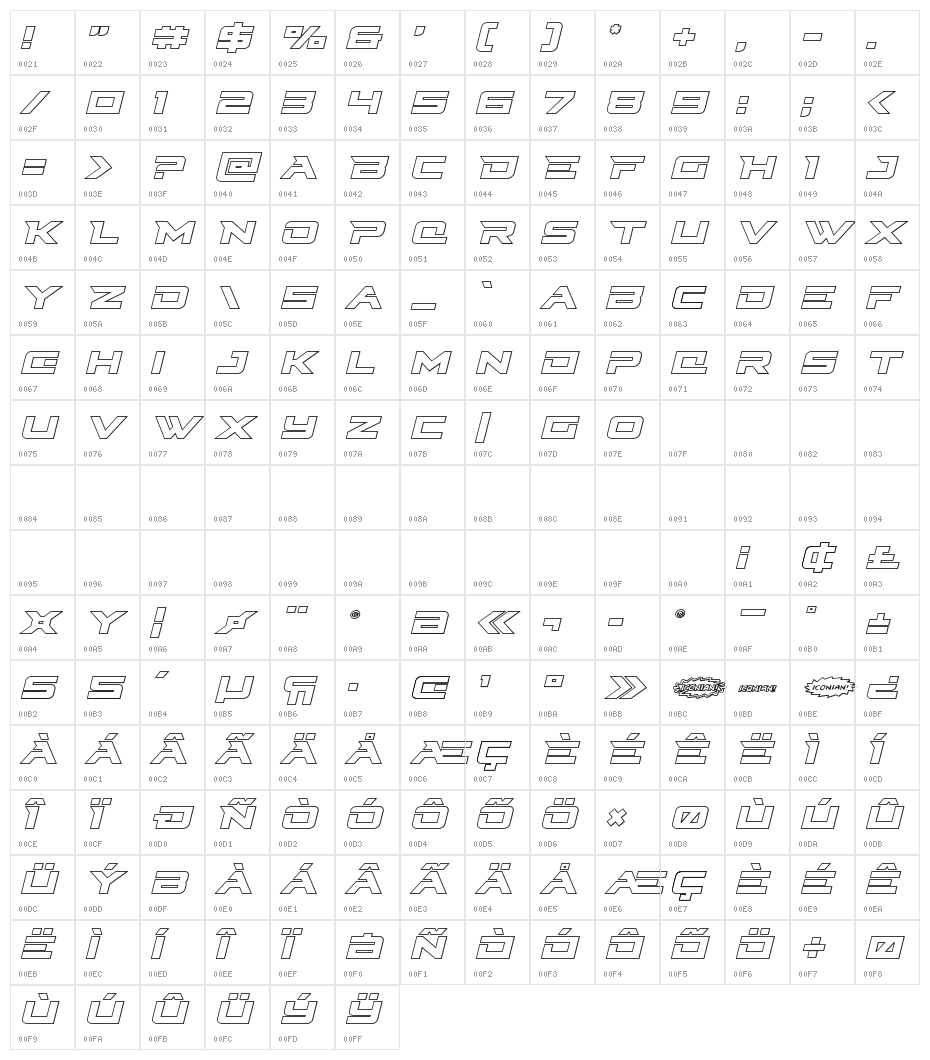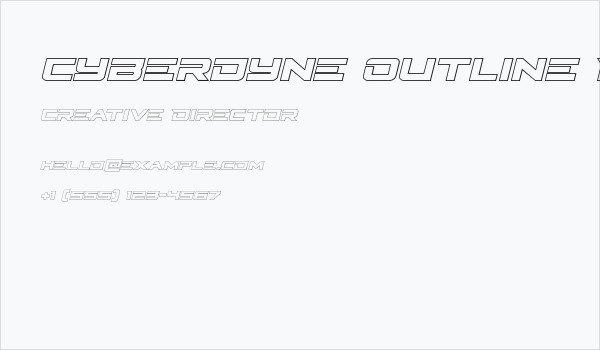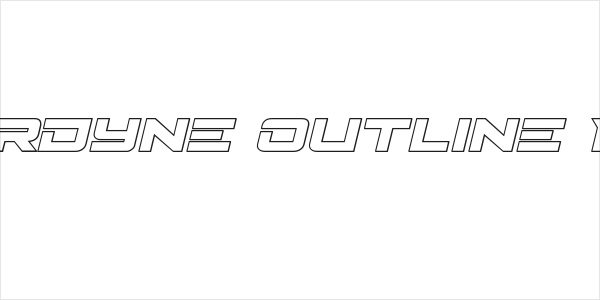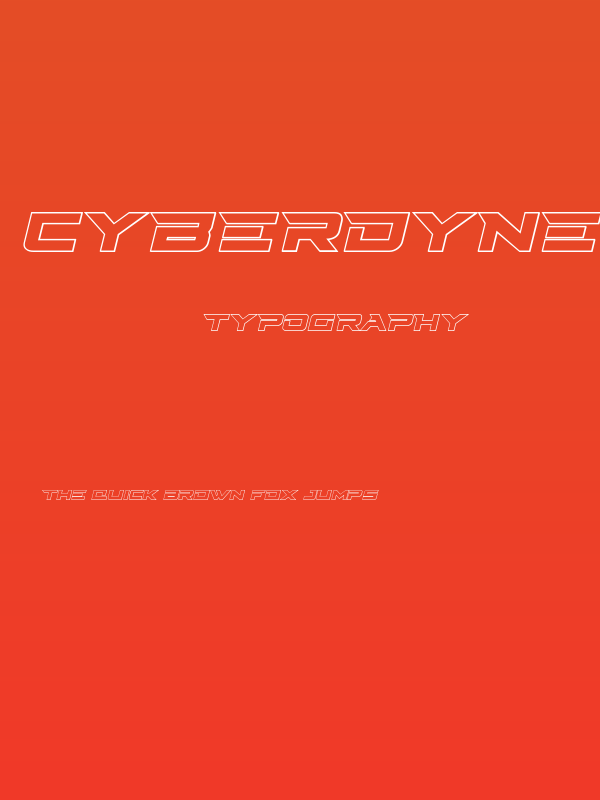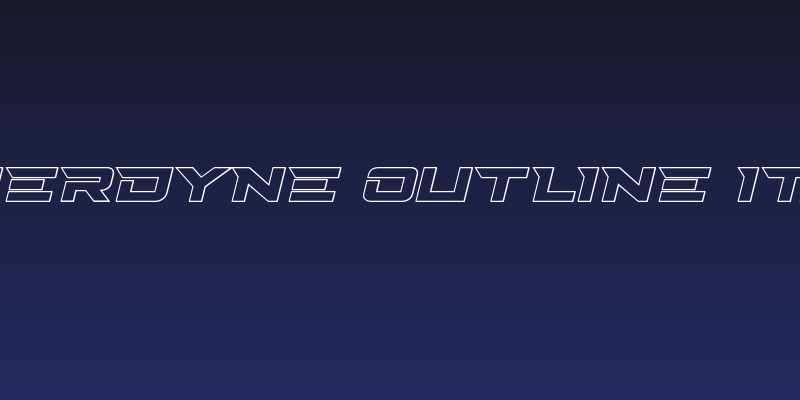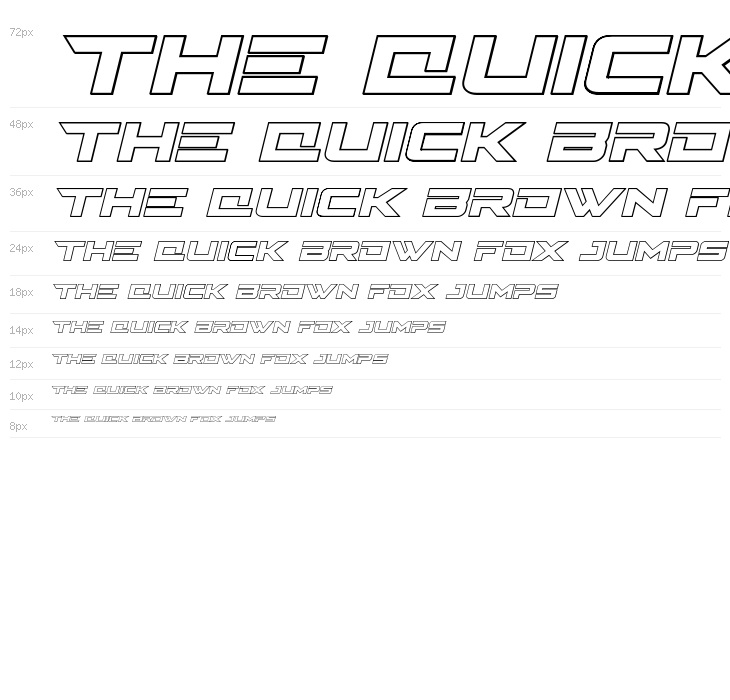
Cyberdyne Outline Italic Font
Cyberdyne Outline Italic Description
This font features a futuristic and angular design with an outline style, giving it a distinct and modern appearance. The characters are italicized, adding a dynamic and forward-leaning effect. The geometric shapes and sharp edges contribute to its tech-inspired aesthetic, making it suitable for digital and sci-fi themed projects. The uppercase letters are bold and prominent, while the numbers and special characters maintain the same stylistic approach, ensuring consistency across all elements.